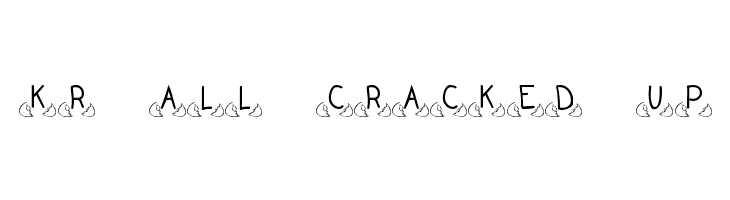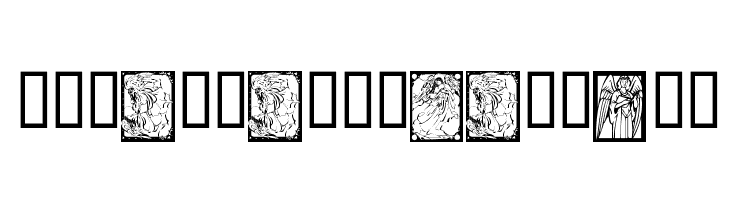
A collection of decorative floral and cat-themed icons.
Cartoon animal dingbat font with playful, hand-drawn style.
A quirky dingbat collection of hand-drawn illustrations.
A playful decorative font with a cracked egg motif on each character.
A festive, decorative font with New Year's themed illustrations.
A decorative script font with integrated floral patterns for a whimsical and elegant look.
A bold, decorative font featuring chess piece silhouettes integrated into each character.
A bold, decorative font styled like vintage wanted posters.
A playful, geometric font with bold serifs and a modern flair.
A decorative set of angelic illustrations in place of traditional font characters.